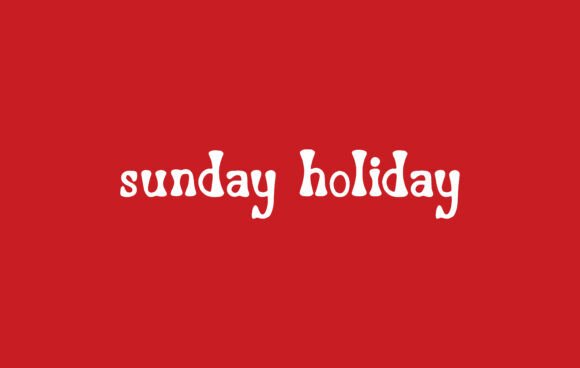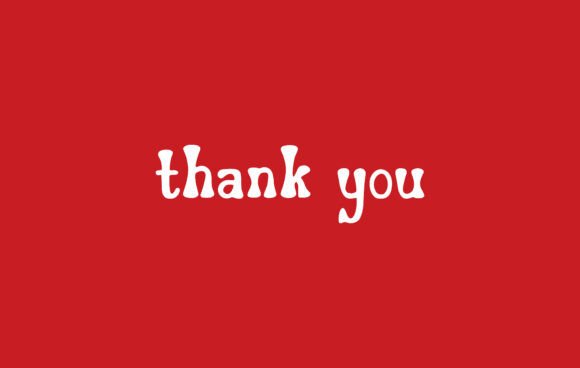
Introduction to Manespecter Font
Have you ever stared at a blank page, trying to find the perfect words to express your creative vision? The struggle is real, but the solution is just a click away. For designers and artists, finding the right font can be the difference between a mediocre project and a masterpiece. That’s where the Manespecter Font comes in – a beautiful, authentic handwritten font that adds a touch of romance to any design.
With its legibility and versatility, the Manespecter Font is perfect for a wide range of creative projects, from magazine headlines to social media graphics, branding, and even wedding invitations. Its high-quality design makes it a valuable resource for designers who want to elevate their work and stand out from the crowd.
Key Features of Manespecter Font
- High-quality design resource suitable for creative projects, offering a unique and elegant aesthetic.
- Perfect for designers looking to add a touch of sophistication and elegance to their creative projects.
Honest Review: Manespecter Font
As a designer, I’m always on the lookout for high-quality fonts to elevate my creative projects. Recently, I stumbled upon the Manespecter Font, and I’m excited to share my honest review.
What works well: ✨ The Manespecter Font has a unique, hand-drawn feel that adds a touch of sophistication to any design. The font is highly customizable, making it perfect for creative projects that require a personal touch. I also appreciate the transparent background, which makes it easy to layer and manipulate the font in design software.
- Unique, hand-drawn feel
- Customizable
Overall impression: I’m impressed with the Manespecter Font and would highly recommend it to designers looking for a high-quality, unique font for their creative projects. Whether you’re working on a personal or professional project, the Manespecter Font is a great choice.
Introduction to Manespecter Font
Designing with Manespecter Font
You can use the Manespecter Font in a variety of creative projects, including graphics, logos, and typography. This font features a transparent background, allowing you to easily combine it with other design elements.
Tips for Getting the Most Out of Manespecter Font
To get the most out of the Manespecter Font, experiment with different font sizes, colors, and styles. You can also combine the font with other design elements to create a unique and eye-catching design.
Common Use Cases for Manespecter Font
The Manespecter Font is ideal for a variety of creative projects, including:
- Graphics and illustrations